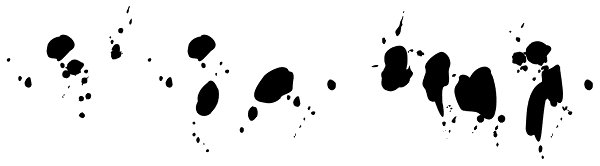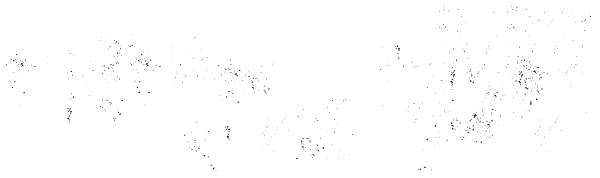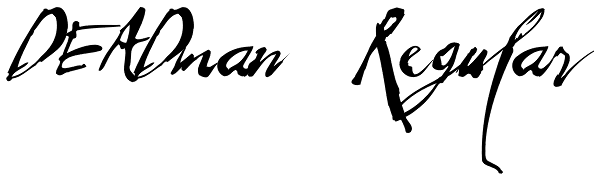
DEADman
The font family "DEADman" is mostly inspired by the weird style of the British illustrator Ralph Steadman. He had a long partnership with the American journalist Hunter S. Thompson, drawing pictures for several of his articles and books e.g. "Fear...
DEADman Blotting
DEADman Squirting
DEADman Regular